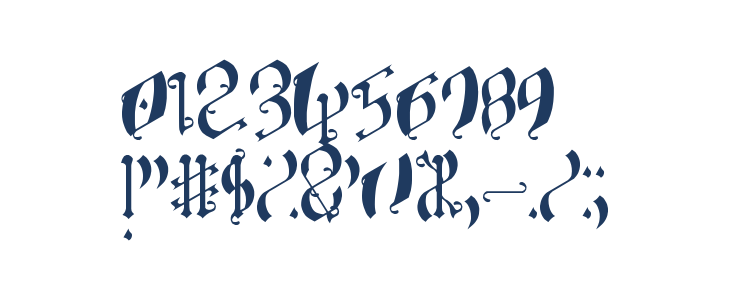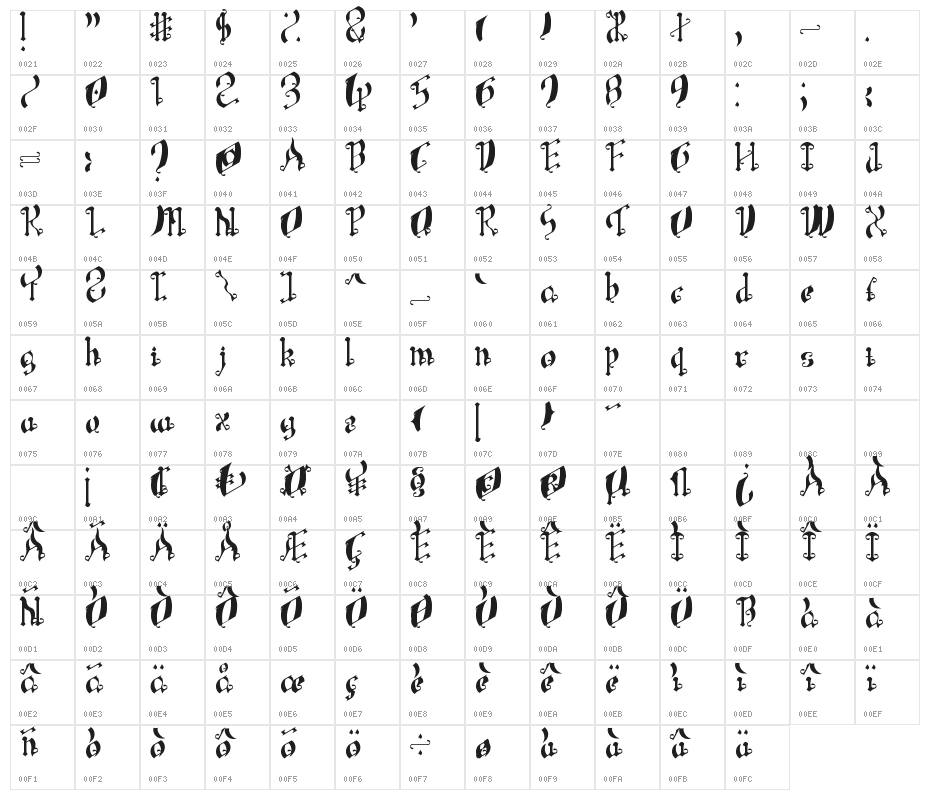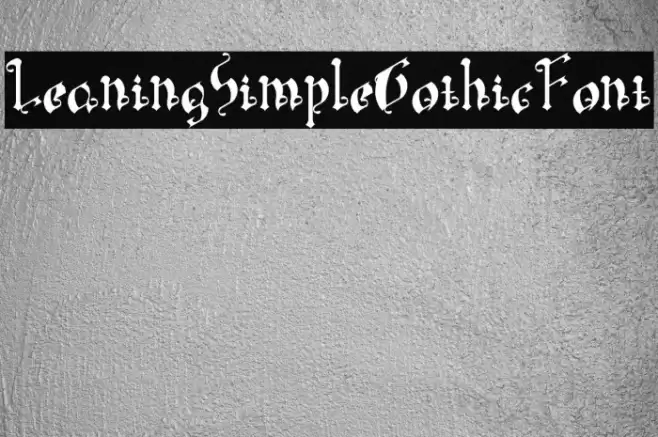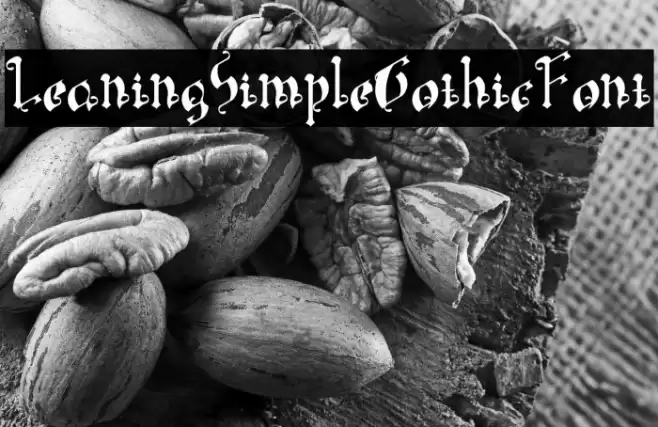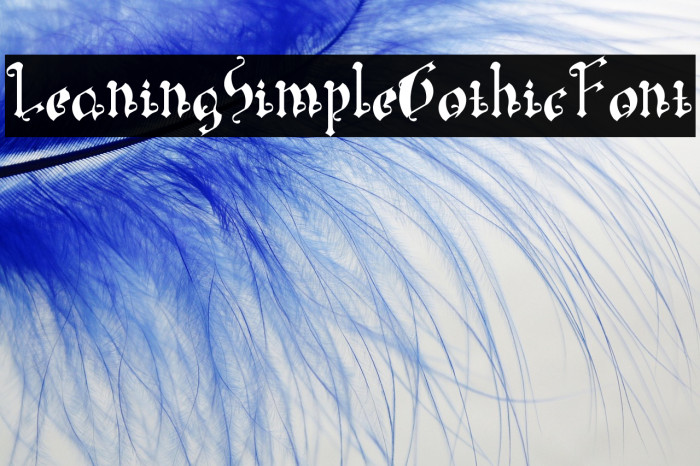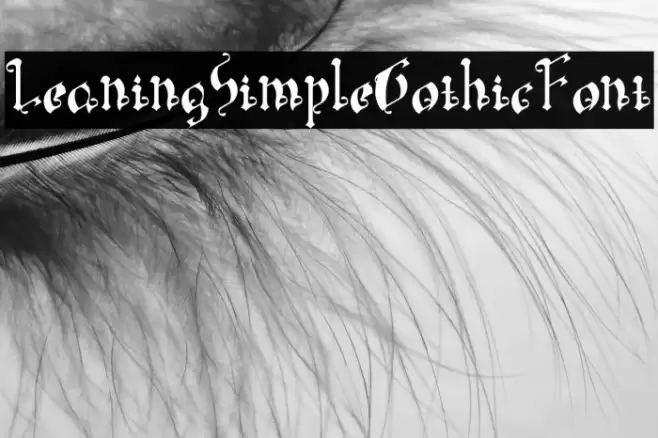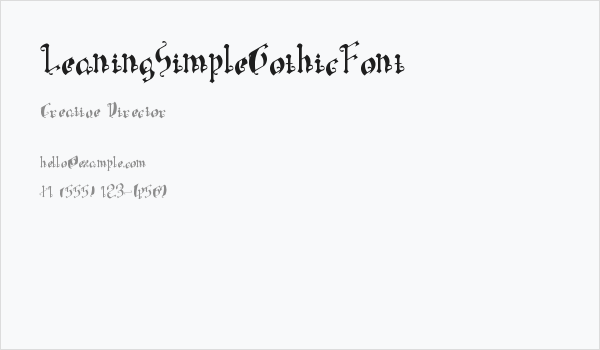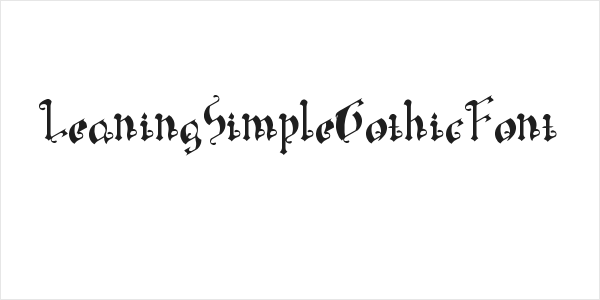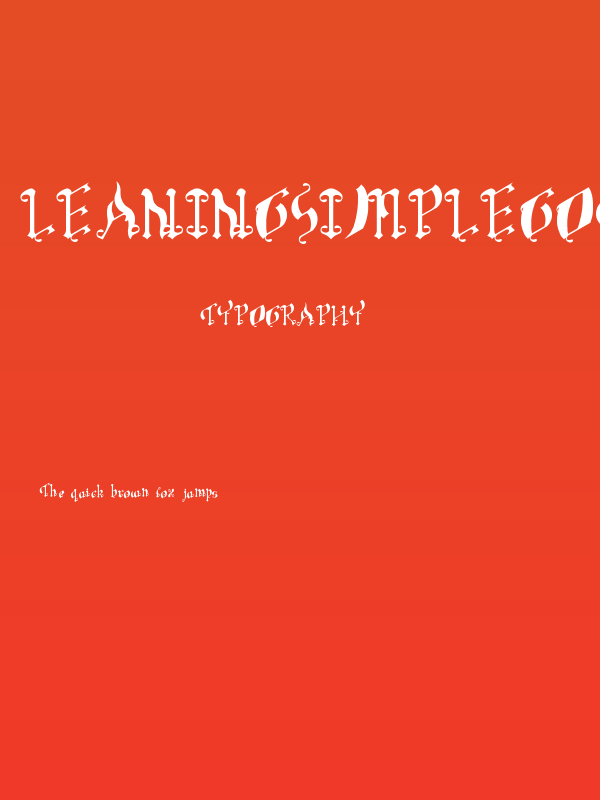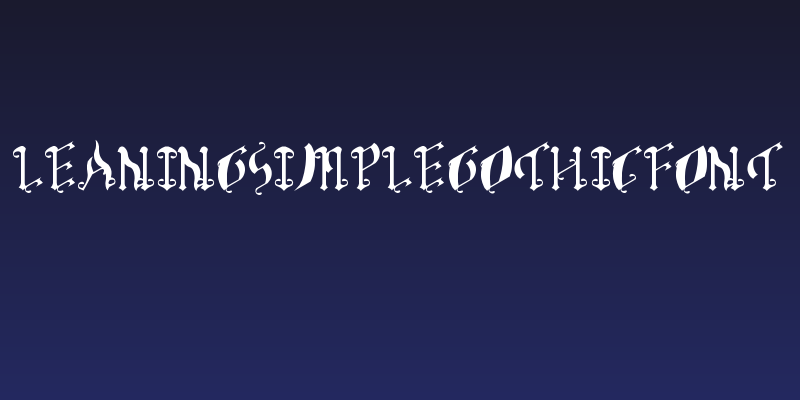
LeaningSimpleGothicFont Font
LeaningSimpleGothicFont Description
This font features a distinctive Gothic style with a modern twist, characterized by its sharp, angular lines and intricate detailing. The uppercase letters are bold and dramatic, with a strong vertical emphasis and decorative flourishes that add a sense of elegance and complexity. The lowercase letters maintain the same stylistic elements, offering a cohesive look across the typeface. Numbers and special characters are equally ornate, ensuring consistency throughout. This font's unique design makes it ideal for projects that require a touch of sophistication and historical flair.
| Overall Style | Modern Gothic |
| Use Case | Headlines, Logos, Decorative purposes |
| Proposed Projects | Ideal for branding, posters, book covers, and any design requiring a Gothic or historical aesthetic. |